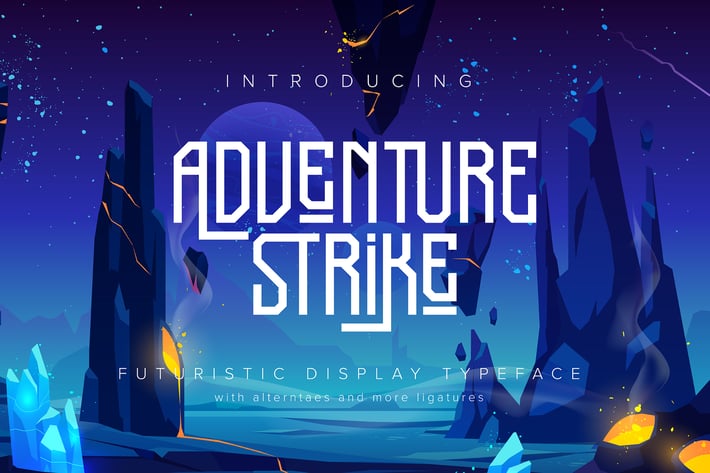
Adventure Strike | Futuristic Display Typeface
Adventure Strike | Futuristic Display Typeface with a calligraphy style, So beautiful on invitation like greeting cards, branding materials, business cards, quotes, posters, and more!